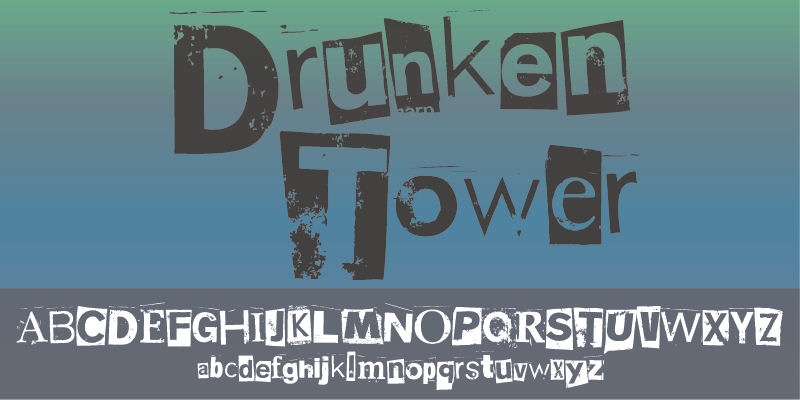
This versatile font is perfect for creative projects like posters, logos, branding materials, and social media graphics, adding a playful yet professional touch.
Drunken Tower Font Free Download is exciting because its quirky, slightly slanted design brings a unique, handcrafted vibe that grabs attention and adds character to any project.
The Drunken Tower Font family includes Regular, Bold, Italic, and Condensed variants, offering flexibility for various design needs.
Elevate your designs with the Drunken Tower Font Free Download, a typeface that blends whimsy with sophistication. Its distinctive, slightly wobbly letterforms make it ideal for projects that need to stand out, whether you're crafting eye-catching headlines, designing memorable business cards, or creating engaging website banners. This font’s charm lies in its ability to balance fun and functionality, making it a go-to choice for designers seeking something fresh and dynamic.
What makes Drunken Tower Font so captivating is its ability to evoke a sense of creativity and individuality. The font’s irregular yet balanced structure creates a hand-drawn aesthetic that feels both artistic and polished, perfect for brands aiming to connect with audiences on a personal level. Whether you're designing for a startup, a creative agency, or a personal project, this font delivers a memorable impact.
The Drunken Tower Font family offers a range of weights and styles, including Regular for everyday use, Bold for striking headlines, Italic for elegant accents, and Condensed for tight spaces. This variety ensures you can adapt the font to any context, from minimalist designs to bold, statement-making graphics. Download Drunken Tower Font Free Download today to experiment with its creative potential and see how it transforms your work into something truly special.